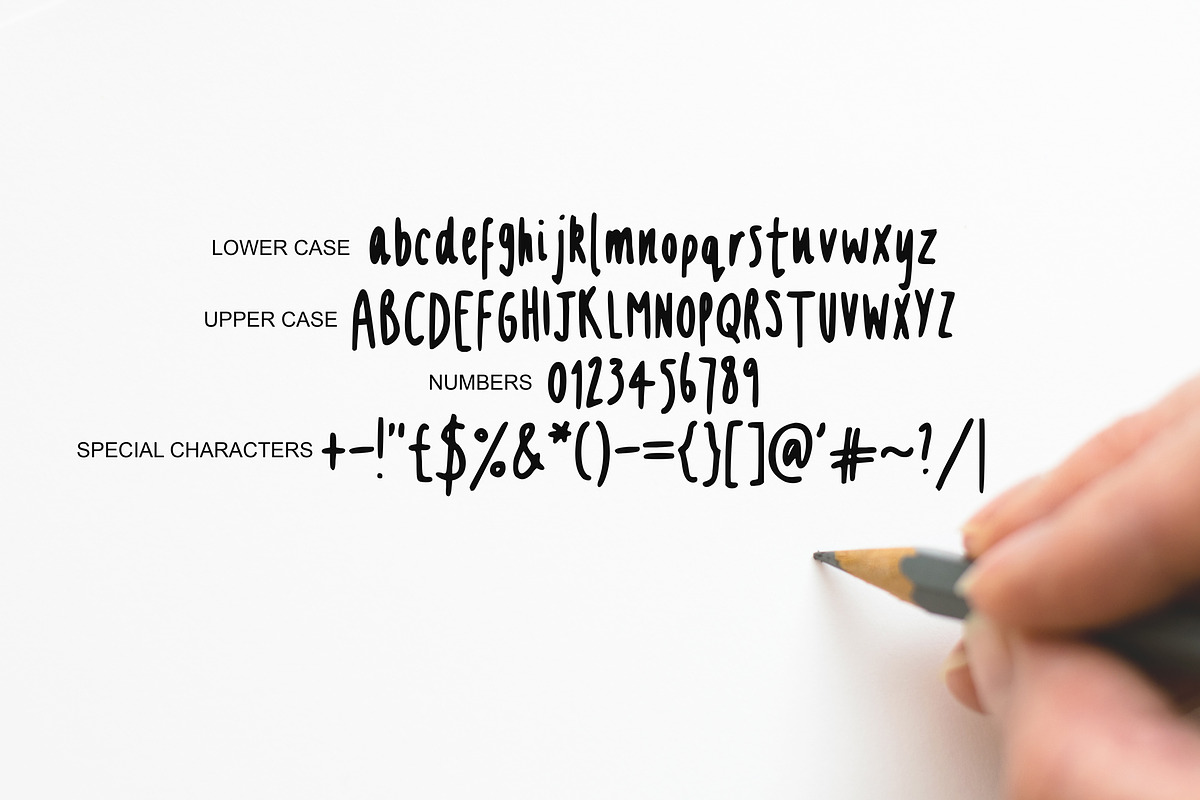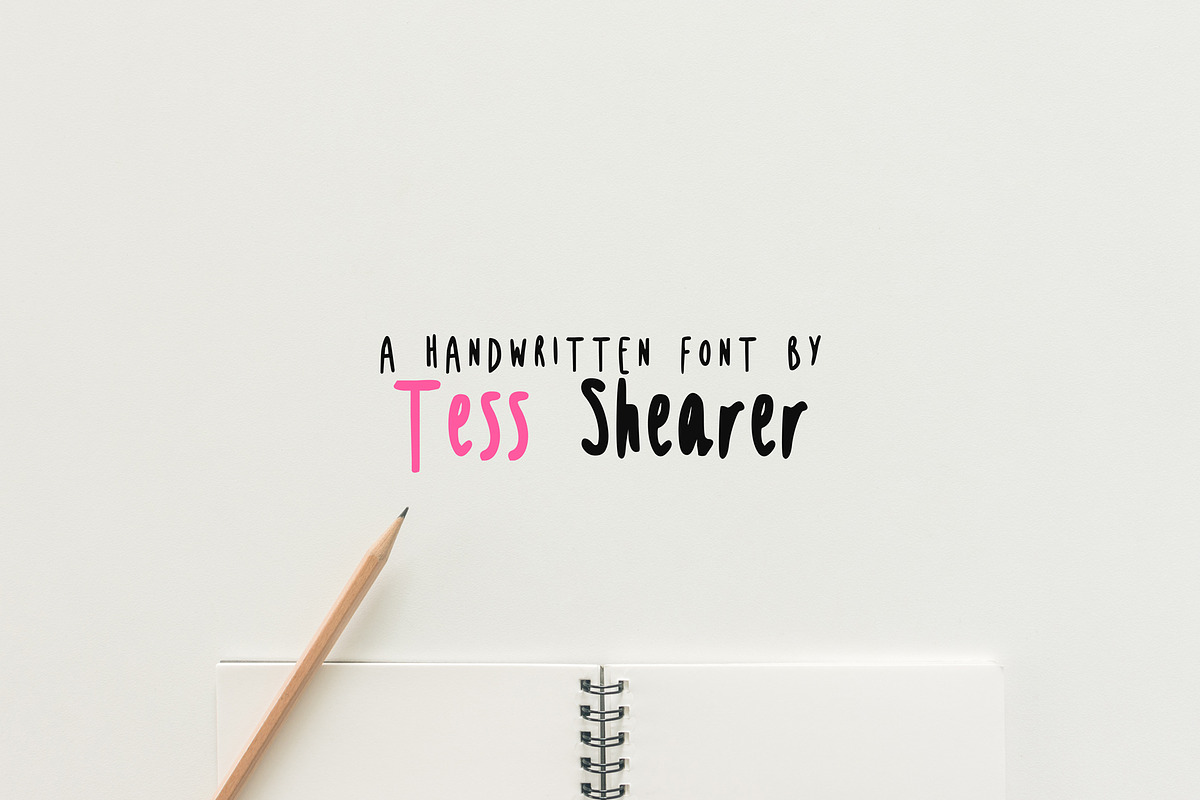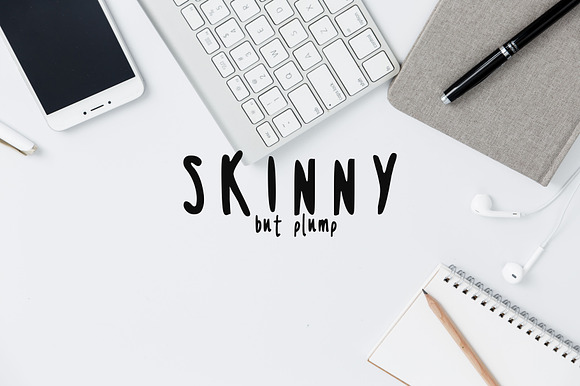
Handwritten Skinny Plump Font
A handwritten font that skinny but a little plump. This playful font would look great in your print, mug or invitation designs.
- Included in this listing is the upper case and lower case letters, numbers and special characters.
Handwritten Skinny Plump Font by TessShearer fits naturally into Branding, posters, packaging, typography.